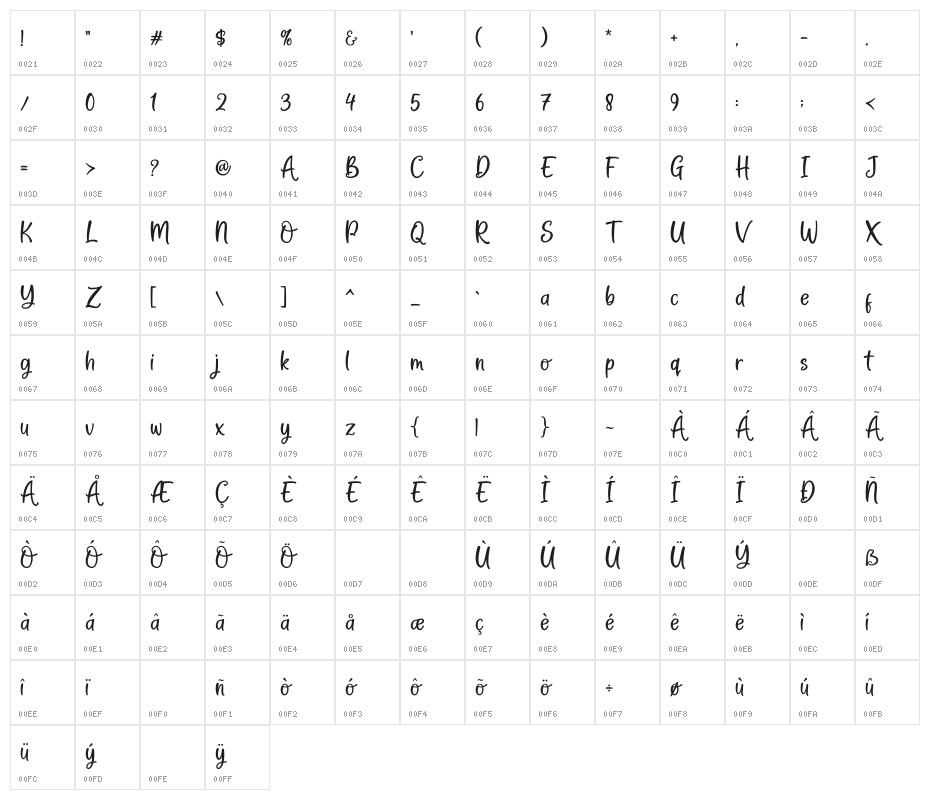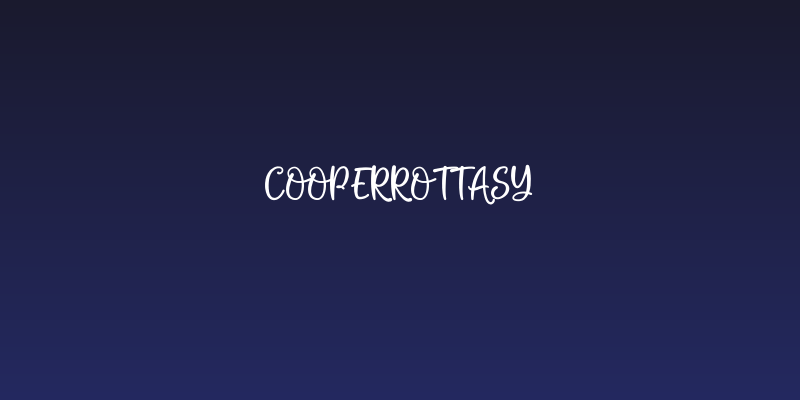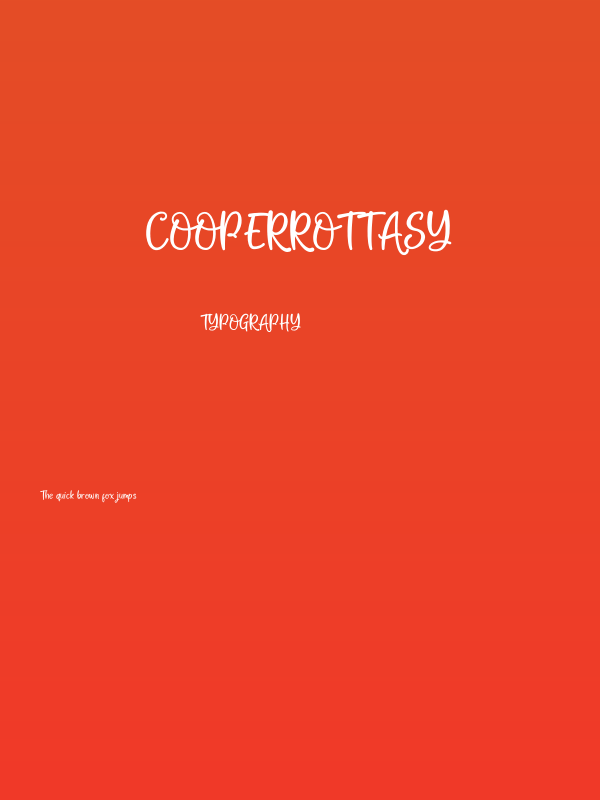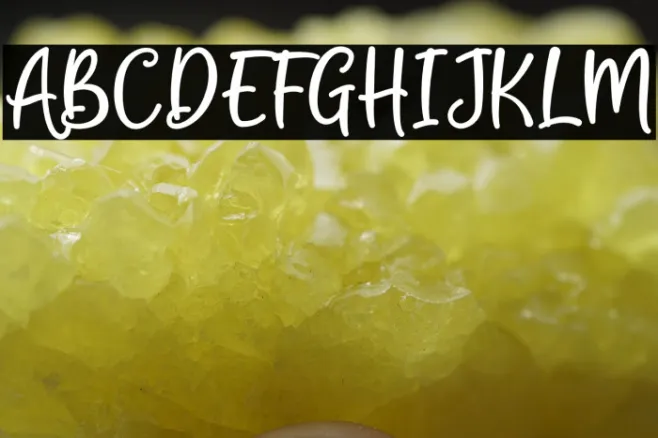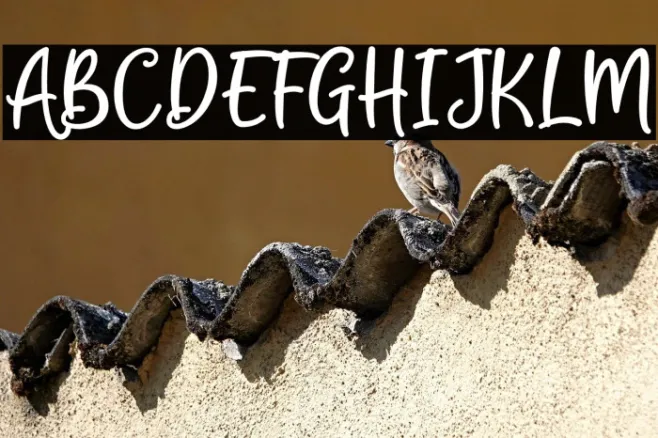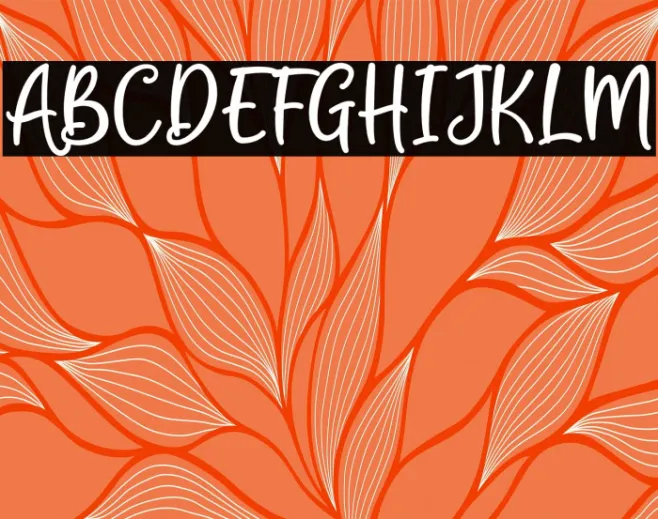
CooperRottasy Font
CooperRottasy Description
This font features a playful and casual handwritten style with a smooth, flowing appearance. The characters are slightly slanted, giving it a dynamic and lively feel. The strokes are consistent in thickness, providing a uniform look across all letters. The uppercase letters are bold and prominent, while the lowercase letters maintain a friendly and approachable demeanor. The numbers and special characters are designed to match the overall style, ensuring cohesion throughout. This font is perfect for projects that require a personal touch or a creative flair.